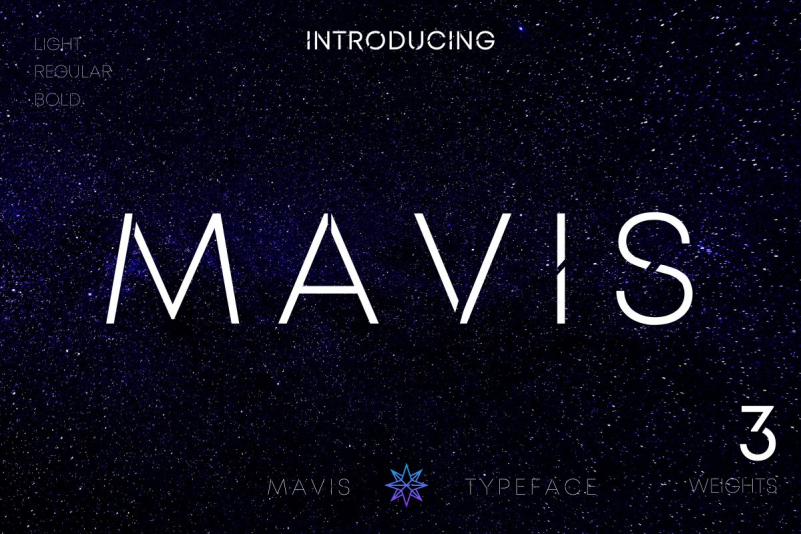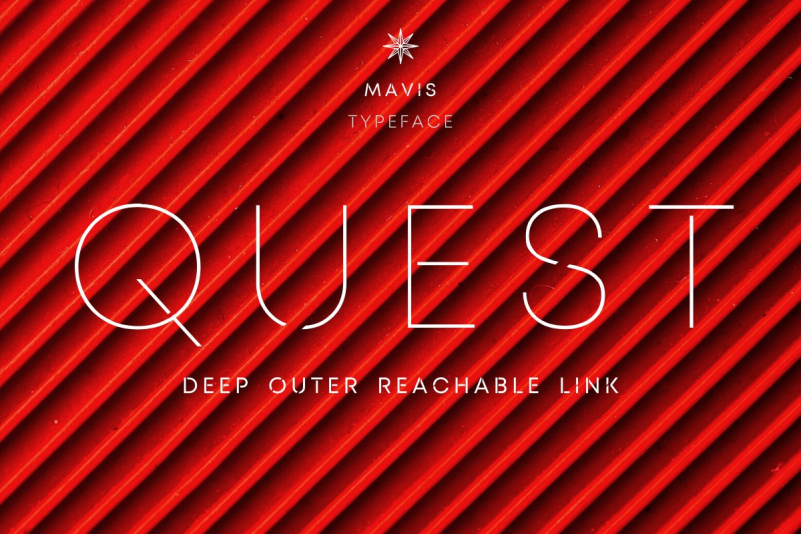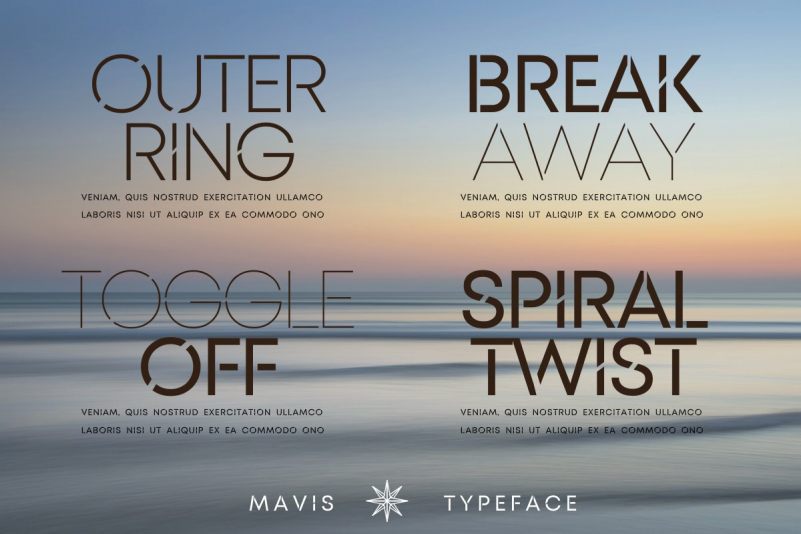
MAVIS SANS FONT
MAVIS SANS FONTMAVIS is a futuristic, space & tech looking font family.
It’s thin and simple, but it’s strong and significant defined by its thin strokes and unique cuts. It is designed for optimal legibility. An all caps sans-serif, MAVIS makes a strong attention grabber for any occasions.